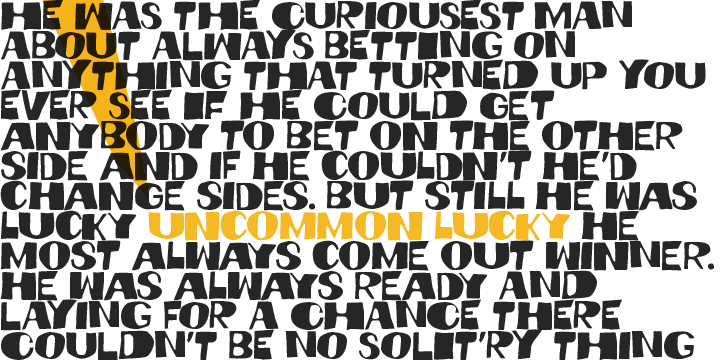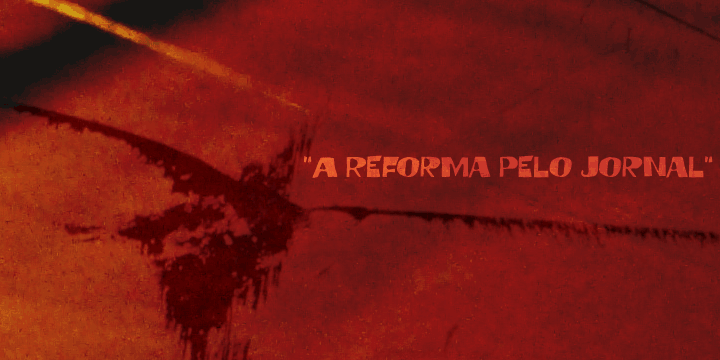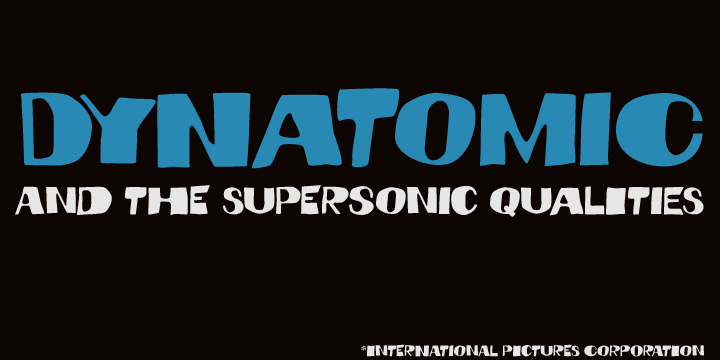
Dynatomic is a display and kids font published by PintassilgoPrints.
A vigorous typeface suited for bold designs, Dynatomic is inspired by an amazing hand-drawn lettering of a 1964 polish movie poster designed by Andrzej Krajewski.
Itís a very eye-catching typeface that works surprisingly well even at not-so-big sizes, making it a great choice for a wide range of applications.